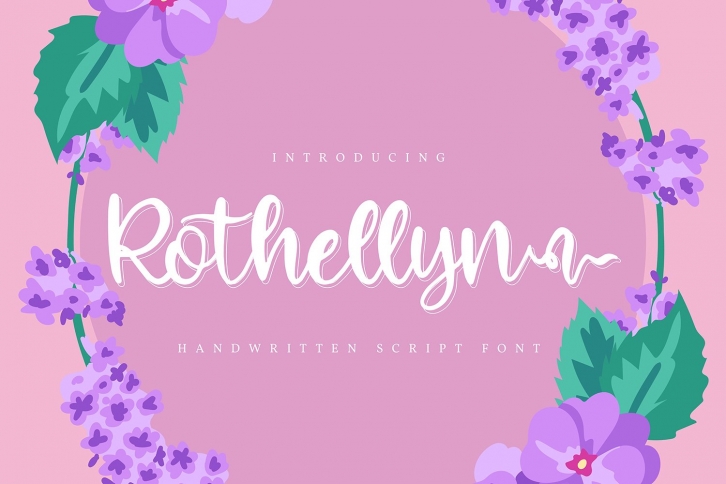
Rothelyn is a trendy and unique font with an authentic style. It was designed by Vunira and it's a great choice for creative people who need such a font. It was released on January 9, 2021 and the file size is 21.41 MB. Rothelyn will add an organic vibe to any design idea!